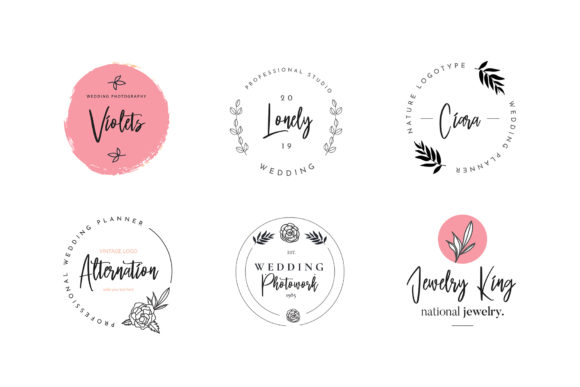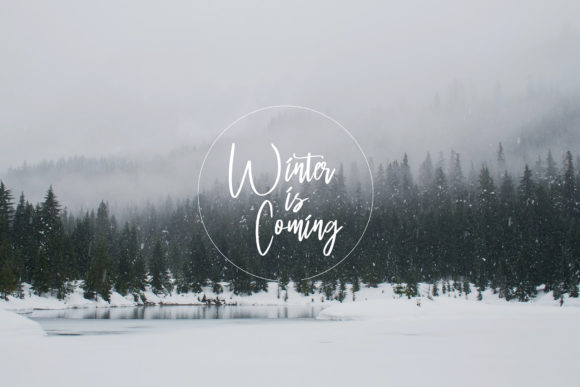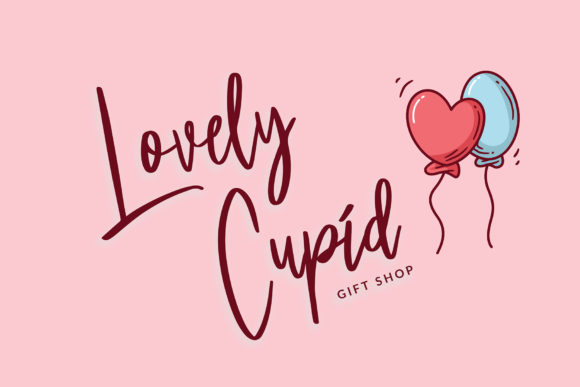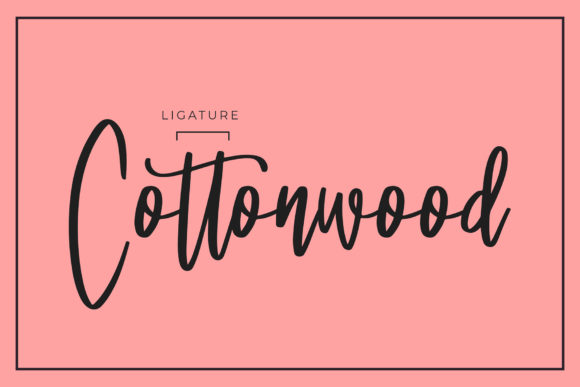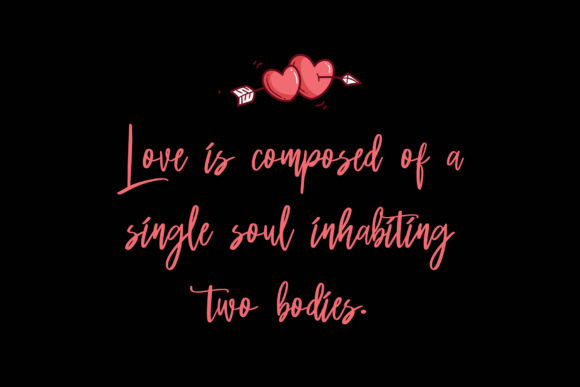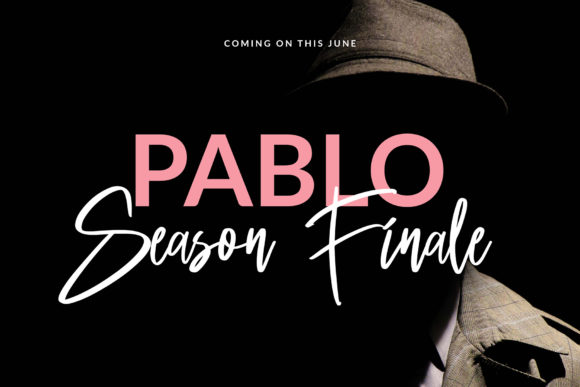
Discover the Art of Elegant Typography with Esthes Font
Have you ever found yourself lost in a moment of pure creative bliss, the perfect font suddenly popping into your mind like a work of art? For designers, this feeling is a regular occurrence, but finding the perfect font to match your vision can be a daunting task. That’s where Esthes Font comes in – a masterfully designed handwritten font that effortlessly combines classic calligraphy with a modern twist.
As a versatile font, Esthes Font is perfect for designers looking to elevate their projects with a touch of sophistication and elegance. Whether you’re working on a wedding invitation, a logo, or a social media campaign, Esthes Font is sure to bring a level of refinement and style that sets your work apart from the rest.
- Unique Characteristics: The font features a unique, hand-drawn aesthetic with subtle texture and imperfections, giving it a distinctive and human touch.
Esthes Font Review
First off, I’d like to say that Esthes Font has some great qualities. ✨ The unique blend of modern and vintage elements makes it stand out from other fonts. It’s perfect for designers looking to add a touch of sophistication and elegance to their projects. The font is highly customizable, allowing you to adjust the weights and styles to fit your specific needs.
One of the standout features of Esthes Font is its versatility. ✨ It’s suitable for a wide range of applications, from print materials to digital platforms. The font is also highly legible, making it easy to read even at small sizes.
While Esthes Font is a solid choice, there are a few limitations to consider. ⚠️ One of the main issues is that it may not be suitable for projects that require a more casual tone. The font’s formal design may come across as stuffy or pretentious in certain contexts.
- Lack of flexibility for informal projects
- Some characters may not be compatible with certain operating systems
Overall, I’d say that Esthes Font is a great choice for designers who want to add a touch of sophistication to their projects. While it may not be the best fit for every situation, it’s definitely worth considering for formal or high-end projects.
Tips for Getting the Most Out of Esthes Font
For optimal results, use Esthes Font in combination with bold or italic styles to create visual interest.
Experiment with different font sizes to balance text hierarchy and readability.
Esthes Font is ideal for:
Brand logos and identity systems.
Headings and titles in creative projects.
Body text in editorial and publishing projects.
Alternatives to Esthes Font for Designers
Montserrat is a popular sans-serif font designed by Julieta Ulanovsky. It is ideal for use in digital media, such as websites and mobile apps, due to its clean and modern aesthetic. Montserrat has a similar feel to Esthes Font, but with a more geometric and industrial look. It is a great choice for designers who want a font that is both modern and versatile.
Lato is a sans-serif font designed by Łukasz Dziedzic. It is known for its friendly and approachable feel, making it suitable for use in body text and headings. Lato has a softer look compared to Esthes Font, but still maintains a clean and modern aesthetic. It is a great choice for designers who want a font that is both readable and visually appealing.